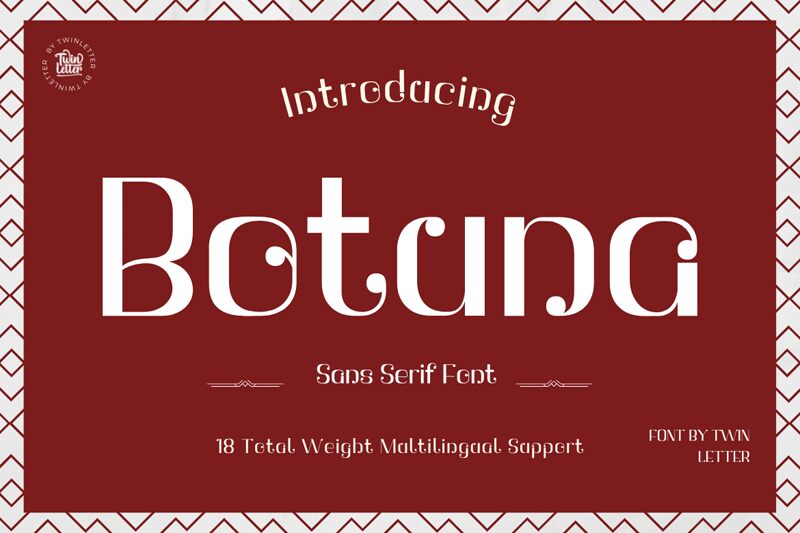
Botuna Bold font is a free geometric display font designed by Twinletter. The characters have both modern and vintage twisted elements that make them feel fresh and alive whether in small or large sizes. This decorative font has elegant overall shapes with reinterpreted accents for different characters.
Thanks to its bold appearance, Botuna can be used in captivating book covers, impactful posters, or branding/packaging projects that require some extra attention. Use it for your modern headings, logotypes, or on apparel prints such as T-shirts as well! Other projects you should consider this font for are app designs, websites, logos/logotypes (gaming/branding), magazines/newspapers/titles, social media posts (Instagram/Facebook/Pinterest/Tweets), etc.